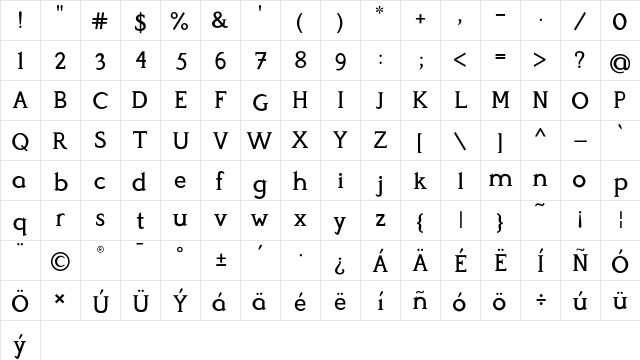
Perspicacious Medium
| Designer | Sharvanna Kenny |
Design Context for Perspicacious Typeface
Perspicacious takes a measured approach to typography — its balanced proportions and neutral character make it a reliable workhorse for both digital and print work.